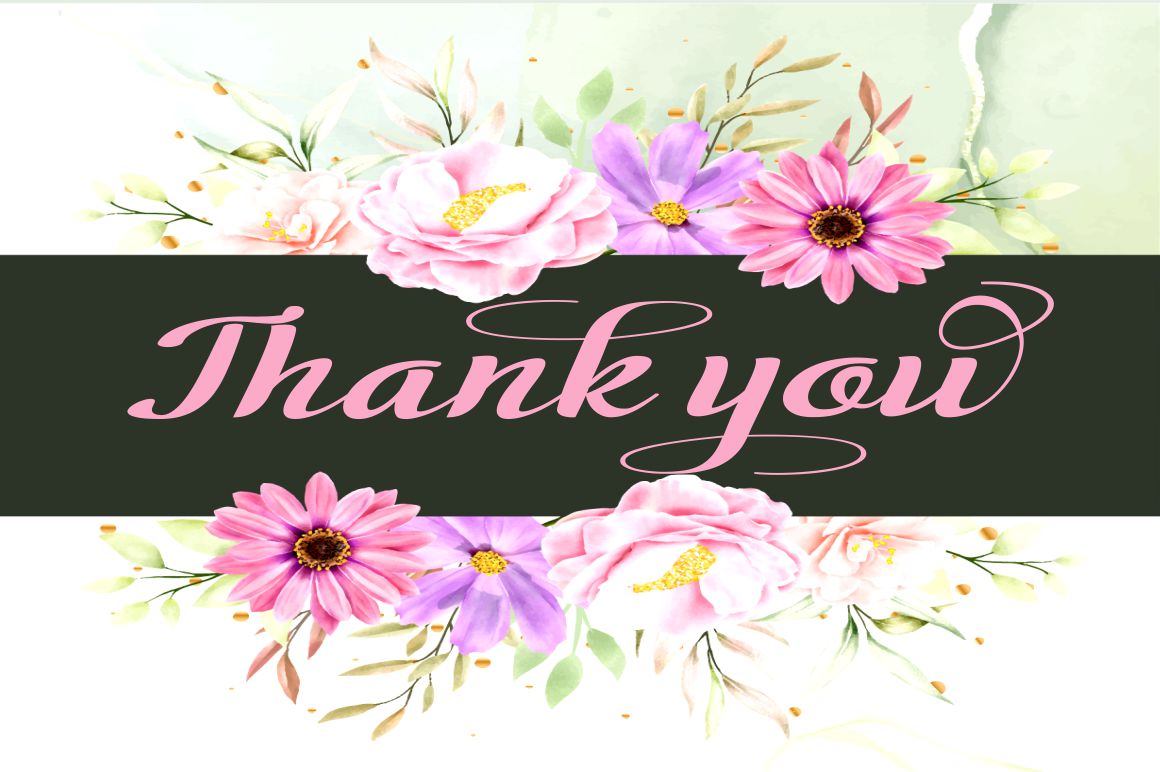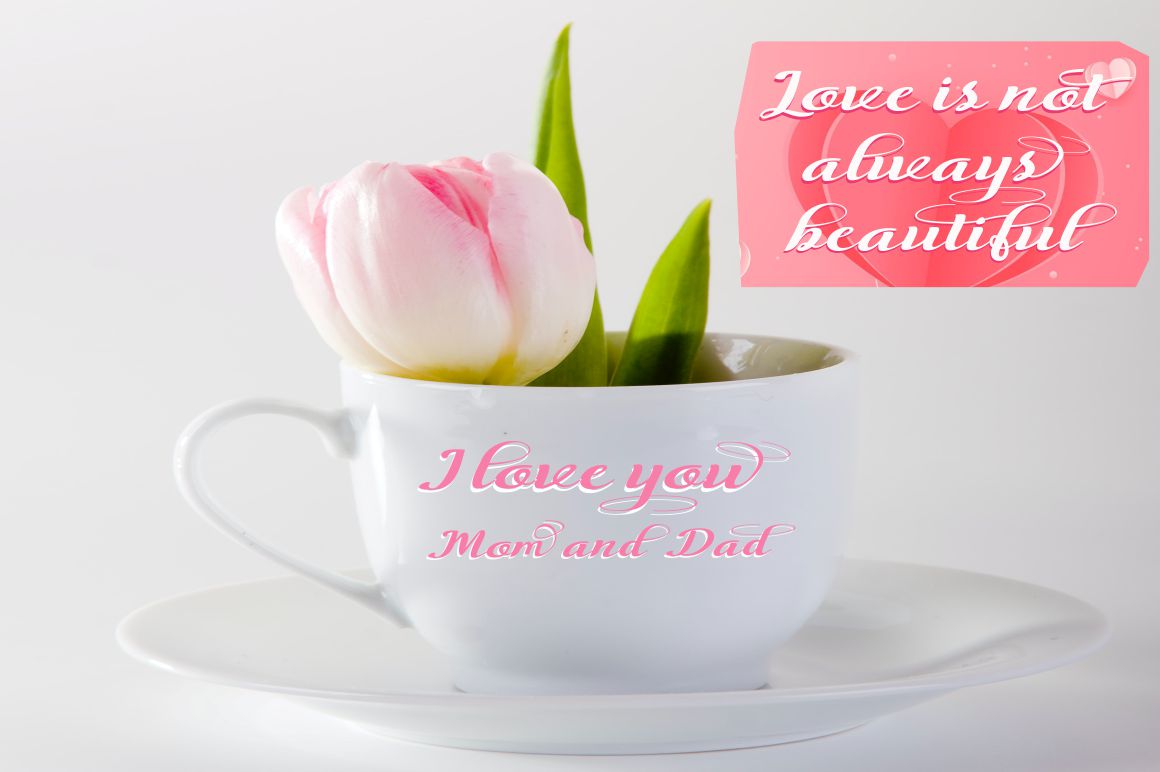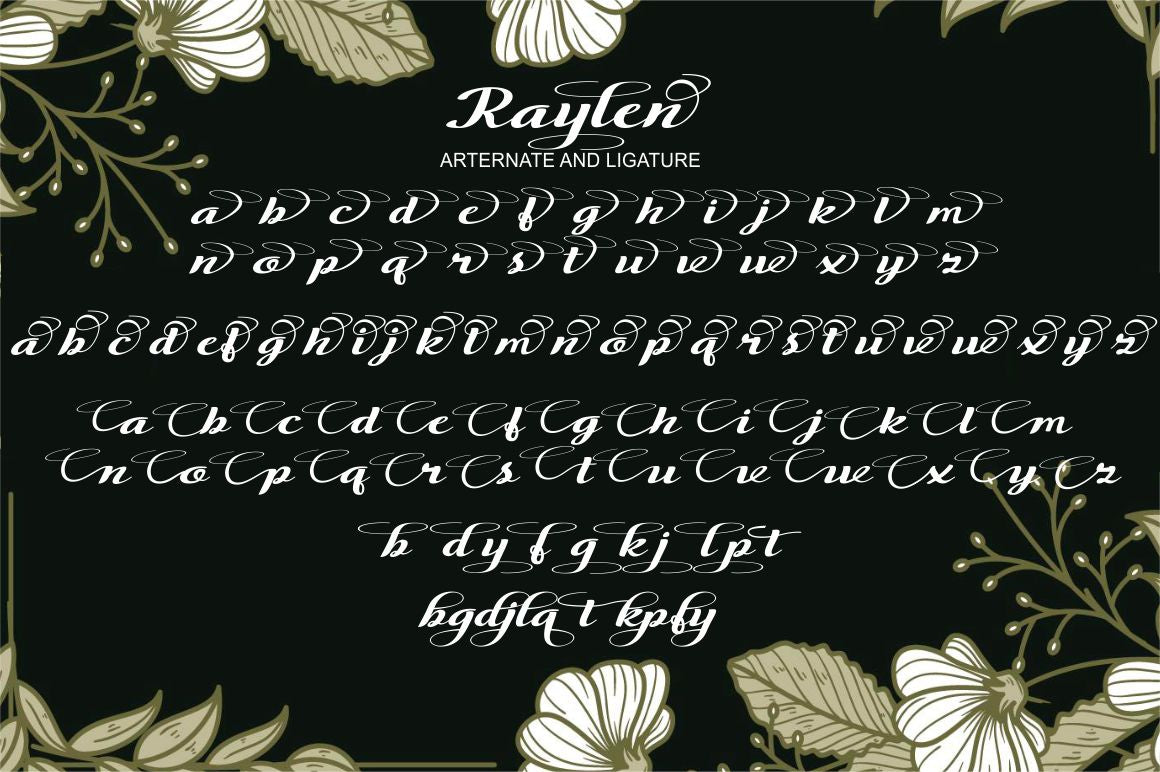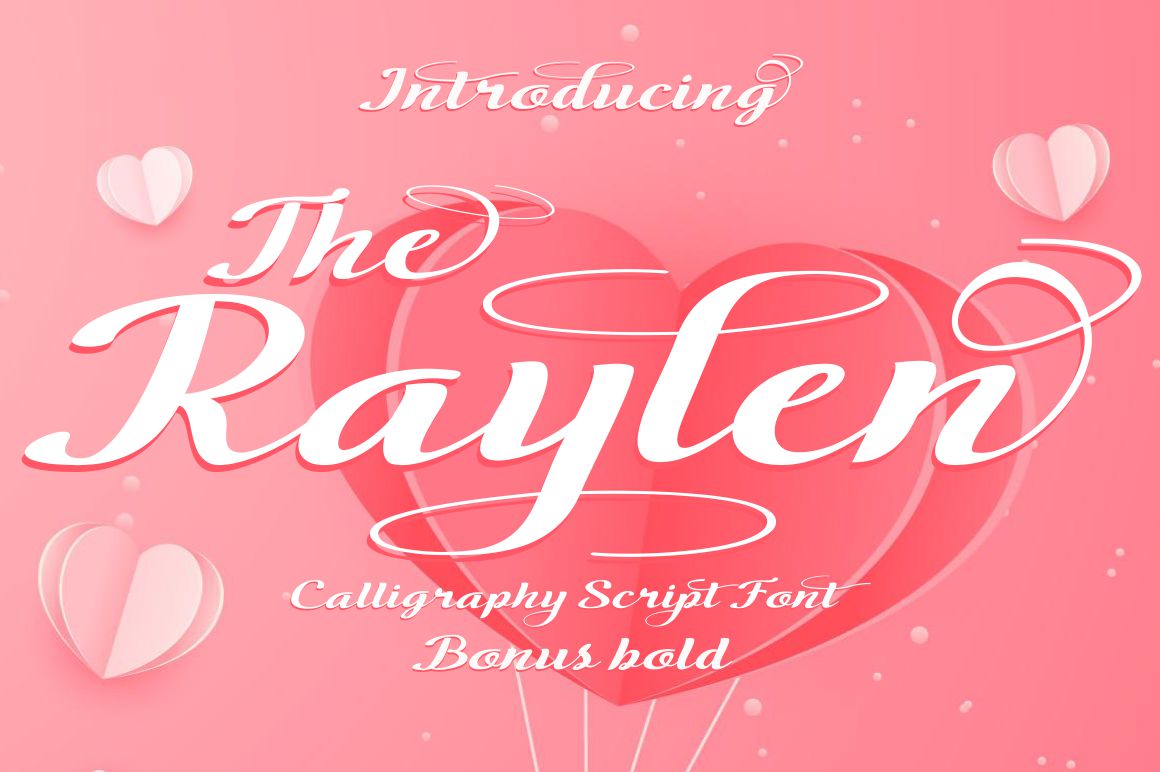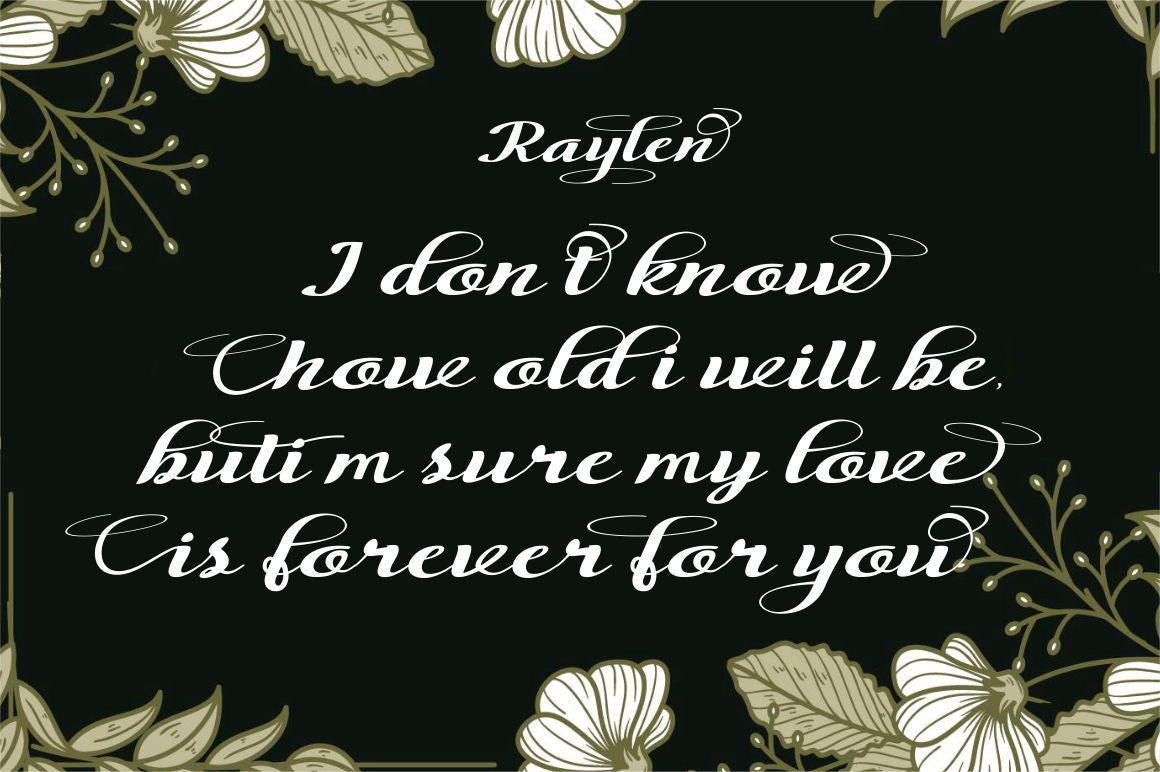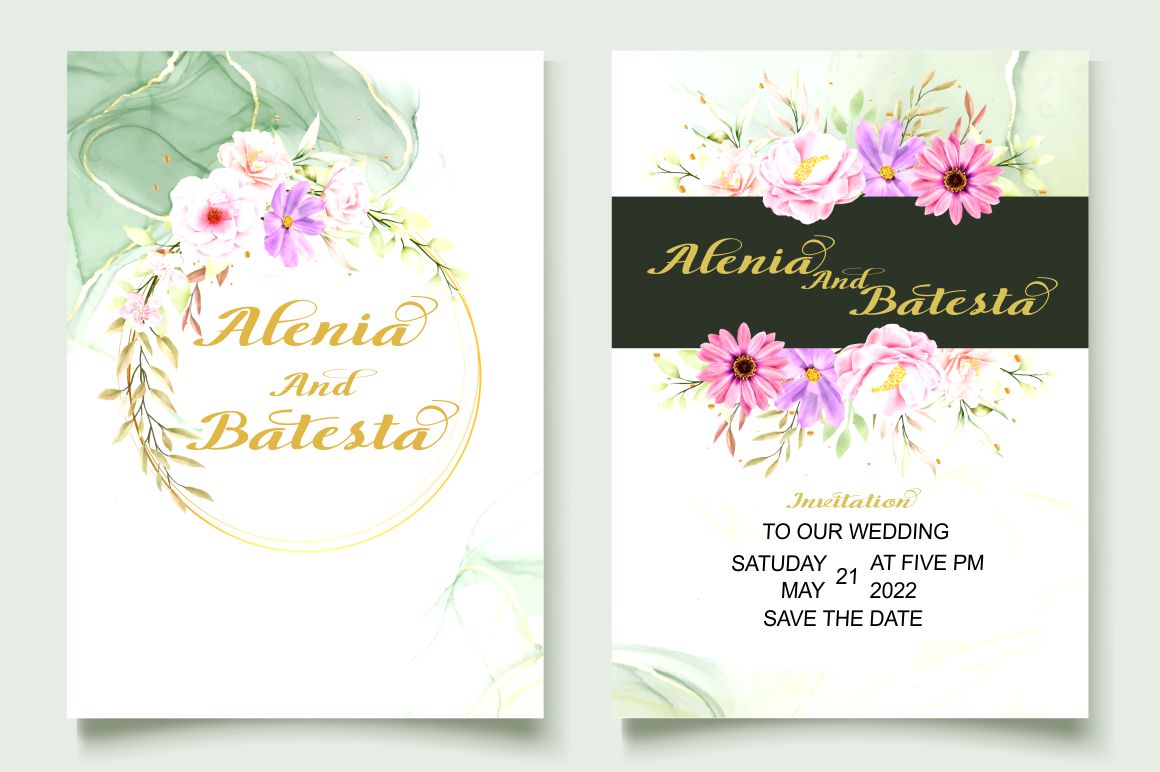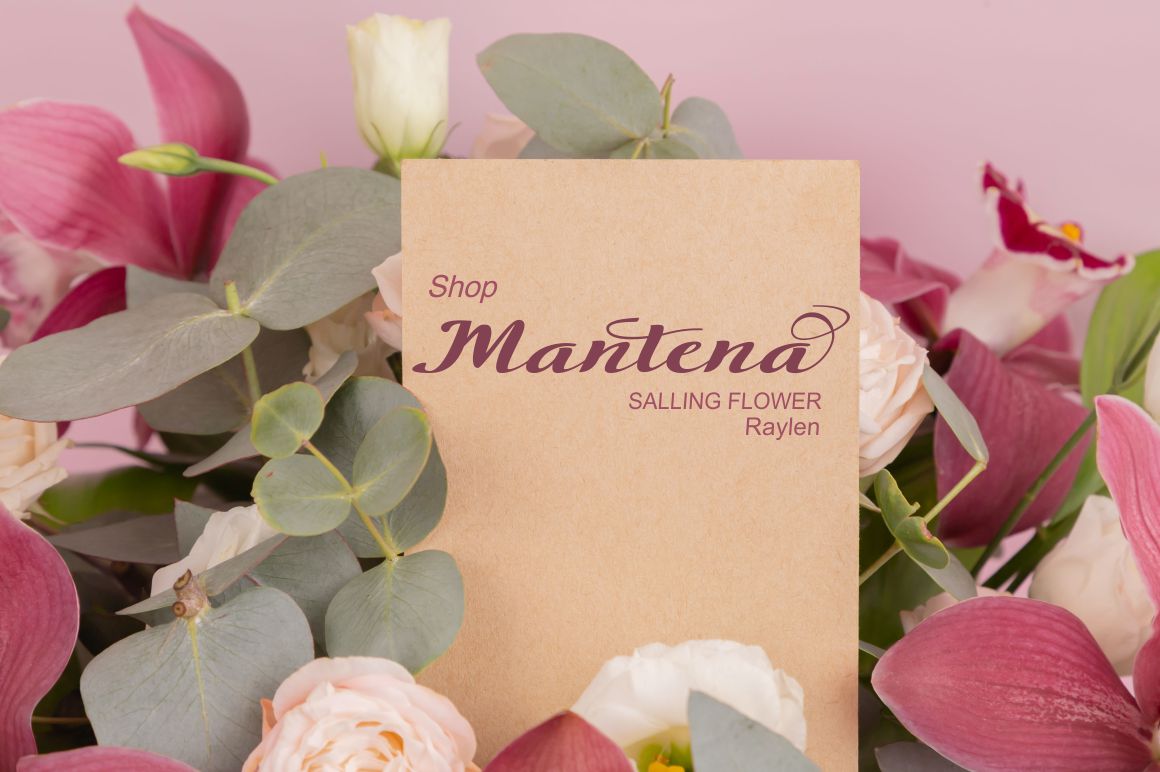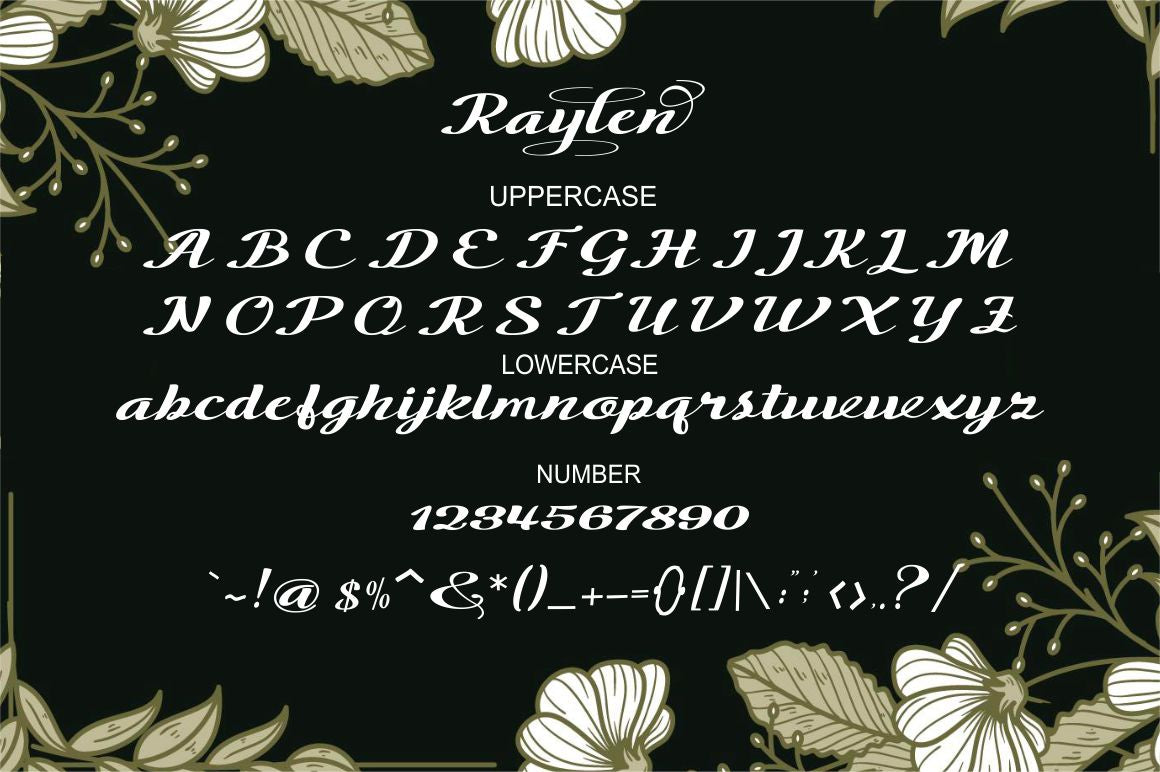
The Raylen
About The Raylen
The Raylen is an extremely easy to read Script typeface, taking on the bold, classic, and fun twist of The Raylen Script font, featuring glyphs and open type in an alternate style. Can be used for various purposes. such as posters, t-shirts, signboards, logos, news, badges etc. To enable the OpenType Stylistic alternative, you need a program that supports OpenType features such as Adobe Illustrator CS, Adobe Indesign & CorelDraw X6-X7, Microsoft Word 2010 or a later version. The Raylen is encoded with PUA Unicode, which allows full access to all additional characters without having special design software. Mac users can use Font Book, and Windows users can use Character Map to view and copy any additional characters to paste into your favorite text editor/app.